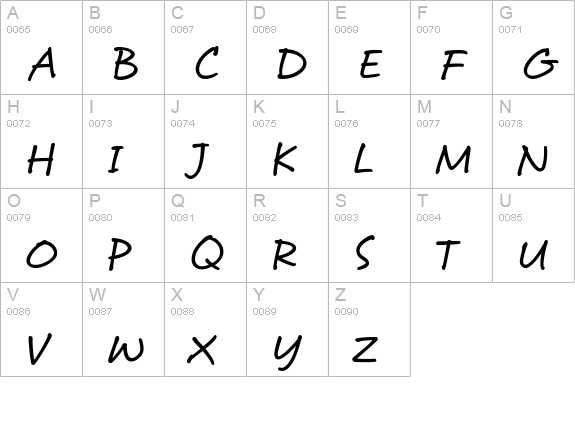
StarbabeHmkBold Font Details
Introducing StarbabeHmkBold, a font that exudes confidence and elegance in every curve and line. Its bold and striking letterforms capture attention, making a statement in any design project. With its sleek and modern design, StarbabeHmkBold is perfect for headlines, logos, branding materials, and more. But what truly sets StarbabeHmkBold apart is its accessibility - it is available for free download at FontsMarket.com, allowing designers and creatives from all walks of life to effortlessly incorporate this stunning font into their work. This means that whether you're a professional designer or someone discovering your passion for typography, you can freely access this extraordinary font without any limitations. StarbabeHmkBold offers a wide range of versatility, making it suitable for various design styles. Its clean and well-defined characters provide clarity and legibility, ensuring that your message is communicated effectively. From posters to websites, packaging to social media graphics, StarbabeHmkBold will elevate your designs to new heights. This font's attention to detail is evident in its meticulously crafted letterforms. Each stroke showcases the dedication and expertise of its designer, resulting in a font that is visually stunning and visually impactful. With its confident and bold presence, StarbabeHmkBold is guaranteed to leave a lasting impression on your audience. So why wait? Embrace the power of StarbabeHmkBold and unlock a world of design possibilities. Download this remarkable font for free at FontsMarket.com and let your creativity soar. Whether you're designing for personal projects or professional endeavors, StarbabeHmkBold will be your trusted companion, adding a touch of sophistication and style to every creation.